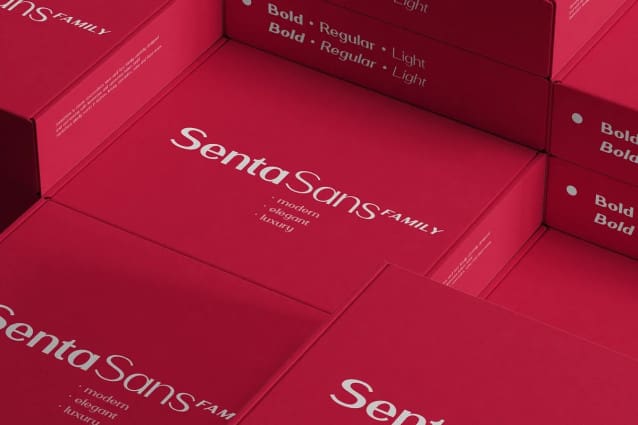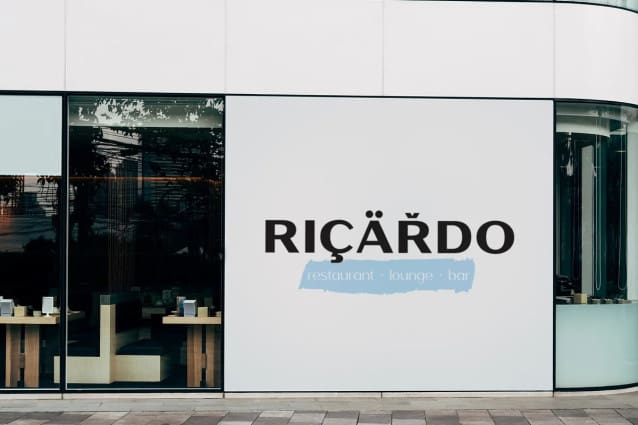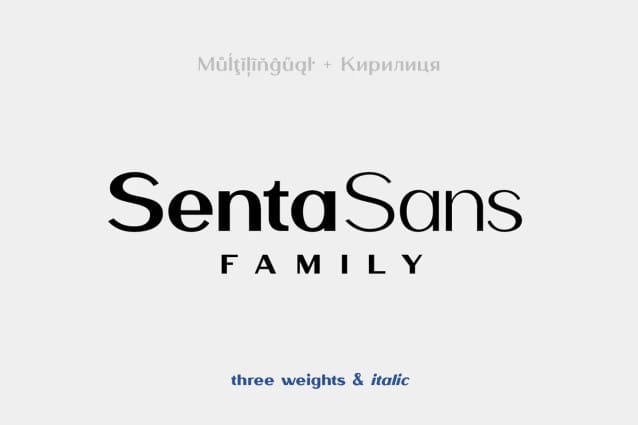
SentaSans Font
SentaSans Font is classic and modern sans serif font family carefully designed and well looking with lowercase and uppercase letters both! SentaSans ideally works in fashion, luxury, cosmetics, wine and food areas.